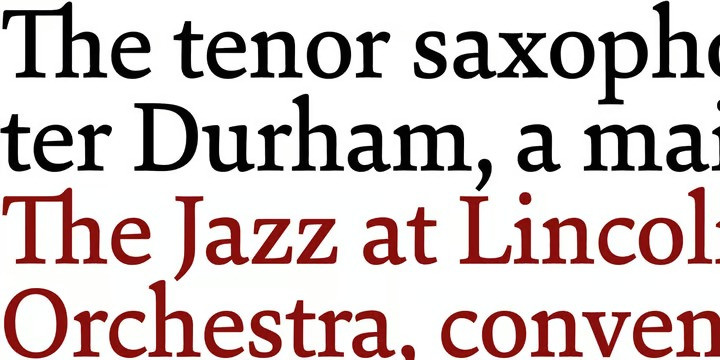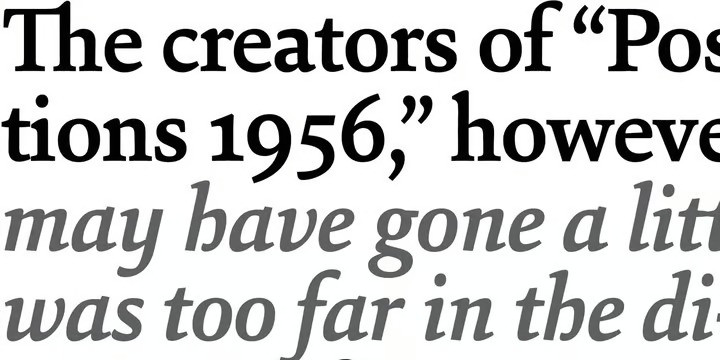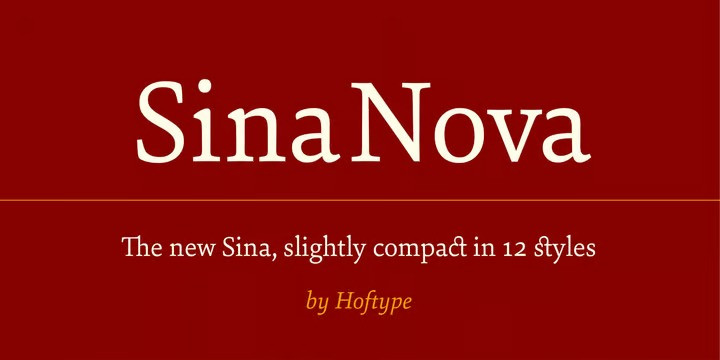
Sina Nova Font
Sina Nova Serif Font is the slimmer sister of Sina. It has a slightly vertical tendency, a higher x-height which makes it more open in small text sizes. Its economical proportions allow an even more universal application. Sina comes in 12 styles and in OpenType format. All styles contain standard and discretional ligatures, small caps, proportional lining figures, tabular lining figures, proportional old style figures, lining old style figures, matching currency symbols, fraction- and scientific numerals. Sina supports Western European, Central and Eastern European languages.